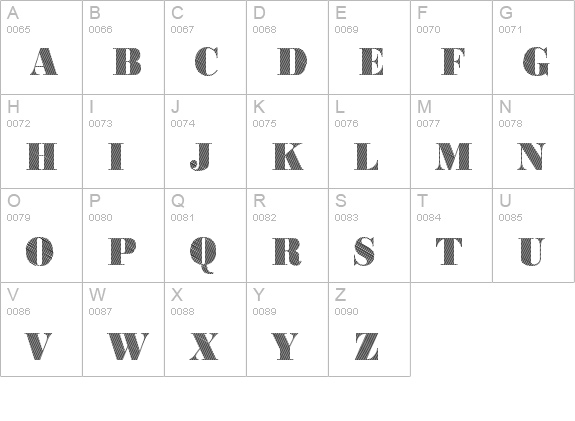
BodoniFalling-Regular is the standard, neutral variant in the BodoniFalling typeface family \xE2\x80\x94 well suited to general body text, paragraphs, and standard typographic work.
BodoniFalling-Regular is a striking and elegant font that exudes sophistication and charm. This font features unique falling elements that add a dynamic and artistic touch to any design. With its sleek lines and classic Bodoni style, BodoniFalling-Regular is perfect for creating eye-catching headlines, posters, and branding materials. Best of all, BodoniFalling-Regular is available for free download at FontsMarket.com. Whether you're a designer looking to add a modern twist to your projects or a creative looking for a fresh new font to play with, BodoniFalling-Regular is a versatile and stylish choice that is sure to make a statement. Download this font today and elevate your designs with its distinctive flair and elegance.